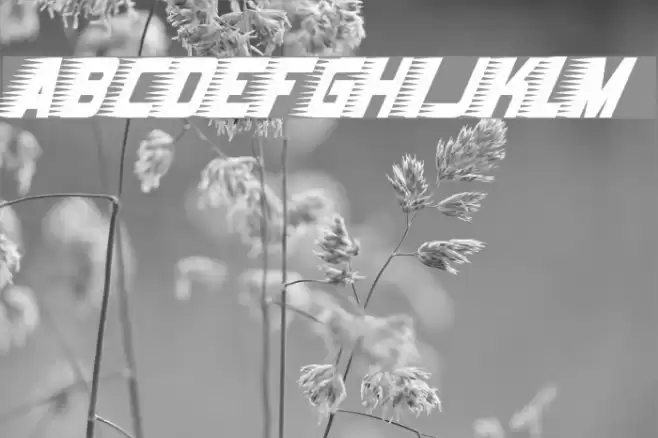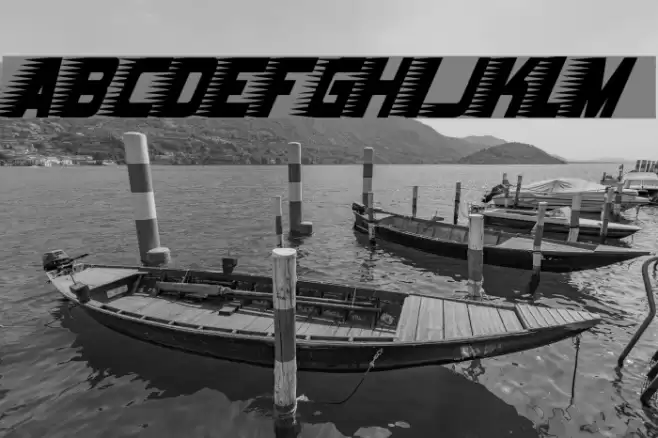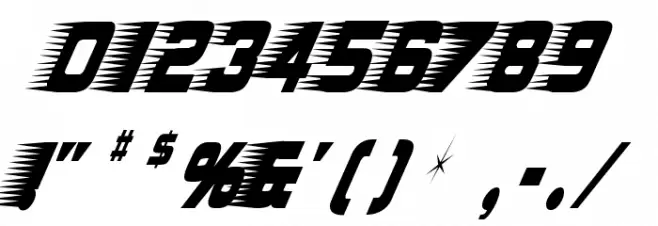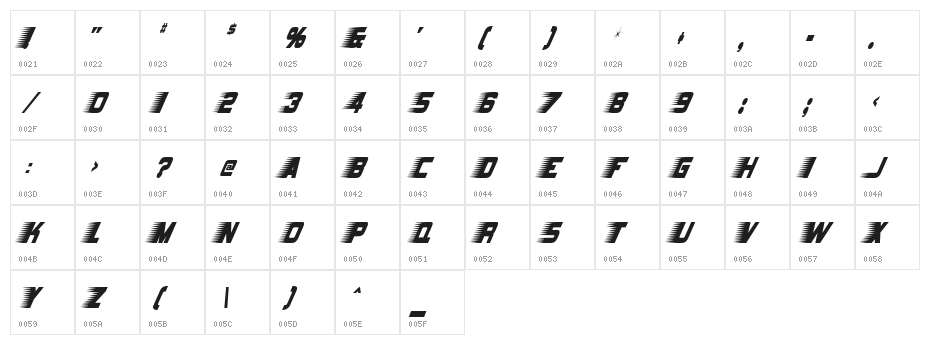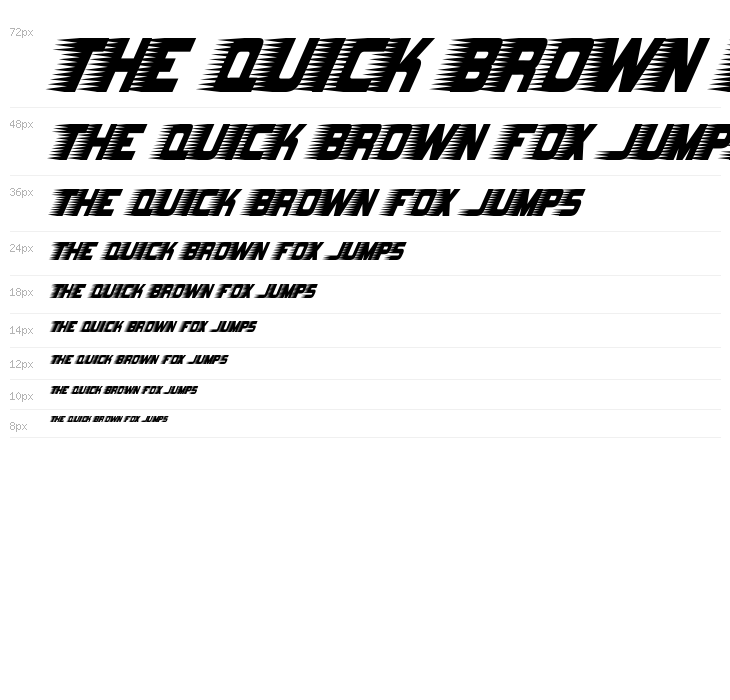
Barbatrick Font
Barbatrick Description
This dynamic font features a bold, italicized style with a distinctive slanted appearance, giving a sense of speed and motion. The characters are tightly spaced, with sharp, angular edges and a unique gradient effect that creates a sense of depth and movement. The font's high contrast between thick and thin strokes enhances its boldness, making it ideal for attention-grabbing designs. Its modern and edgy aesthetic is perfect for projects that require a sense of urgency or excitement.
A bold, italicized font with a dynamic, slanted style and high contrast from Capitals fonts.
- Proposed Projects: Ideal for sports branding, racing event posters, dynamic logos, and action-themed graphics.
- Character Spacing: Tight